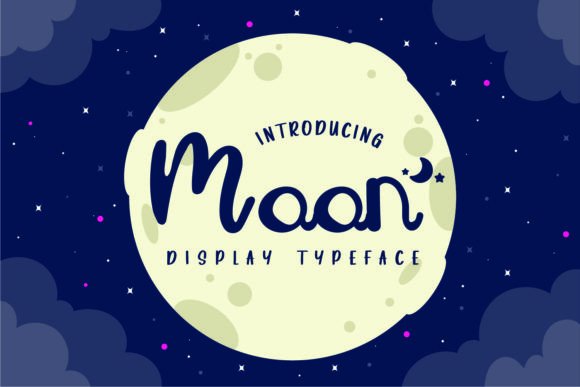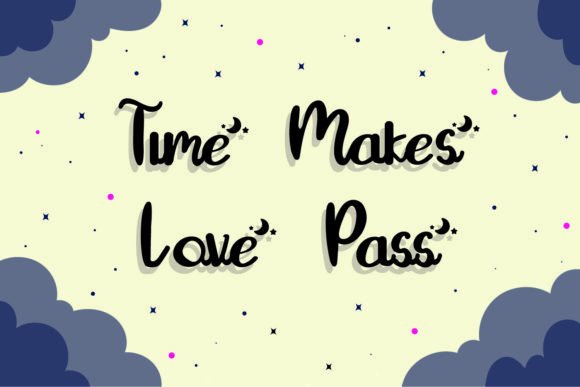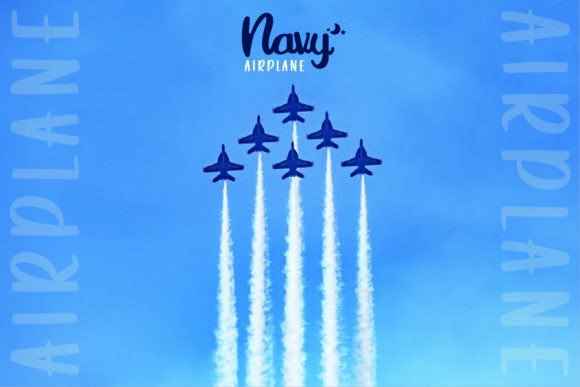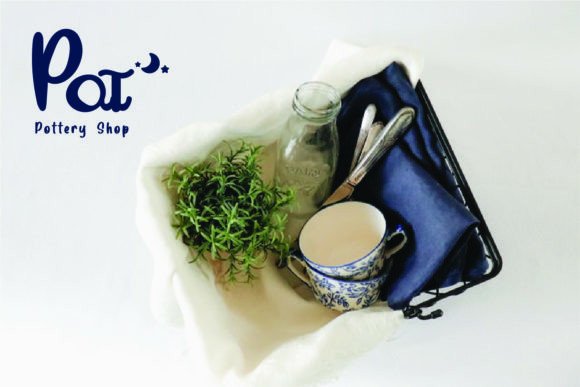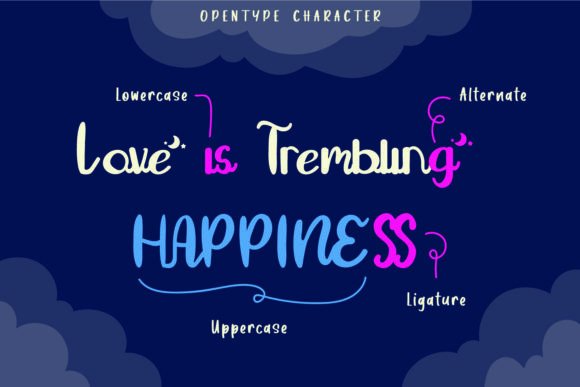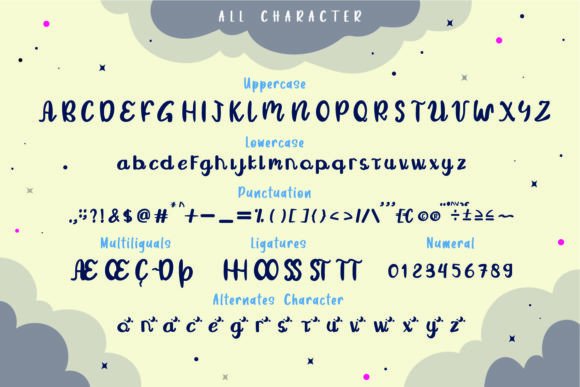
Moon Font
About Moon Font
Moon is not just a font; it’s a bold script that adds a touch of elegance and flair to your designs. With its calligraphy style, Moon is a versatile choice for a wide range of creative projects, including invitations, branding materials, business cards, quotes, and posters.
The bold and calligraphy nature of Moon is evident in its script design. The characters are crafted with precision and style, making it a standout choice for projects that demand a bold and sophisticated appearance. Whether you’re designing an invitation or creating a brand identity, Moon ensures that your designs exude a sense of elegance.
In invitations and greeting cards, Moon becomes a bold and beautiful choice. Its calligraphy script adds a touch of sophistication, making your event materials visually appealing and memorable. The bold characters in Moon turn your text into a statement, creating a strong visual impact.
For branding materials and business cards, Moon’s bold script adds an extra layer of style. The calligraphy elements bring a sense of elegance and professionalism to your brand, ensuring that it stands out in a sophisticated manner.
By including Moon in your font collection, you’re not just adding a typeface; you’re selecting a design element that brings a bold and calligraphic quality to your creative endeavors.
In essence, Moon is a font that goes beyond being a tool. It’s an expression of bold script charm that transforms your invitations, branding, and creative projects into visually striking and elegant works of art.